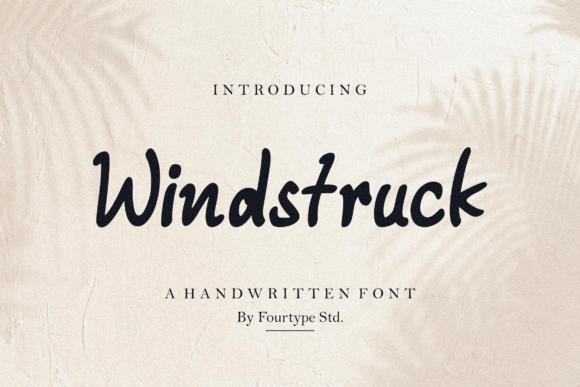
Unleash the allure of Windstruck Font, an exquisite collection of handwritten wonders, delicately crafted to captivate and inspire. With its graceful curves and elegant strokes, this script font family gracefully blends the charm of traditional calligraphy with a modern, refreshing touch, making it a timeless choice for discerning designers.
Immerse yourself in the world of Windstruck, where every letter dances with a unique personality, adding a touch of whimsical charm to your creations. Experience the joy of effortless expression as you effortlessly craft captivating designs that resonate with your audience. Whether you're a seasoned design virtuoso or just starting your creative journey, Windstruck is your perfect companion, guiding you towards design excellence.
Journey through the boundless possibilities of Windstruck, where your imagination takes center stage. Let your creativity soar as you design mesmerizing logos that command attention, eye-catching social media posts that ignite engagement, and stunning invitations that create a lasting impression. Windstruck is your secret weapon, transforming ordinary designs into captivating masterpieces that leave an unforgettable mark.
Elevate your advertising campaigns to new heights with Windstruck's captivating charm. Its inherent elegance lends a touch of sophistication to your designs, making them irresistible to your target audience. Create brochures, flyers, and posters that speak volumes, leaving a lasting impression that drives conversions and propels your business forward.
With Windstruck, you'll discover a font that is as versatile as your imagination. Its ability to seamlessly adapt to a myriad of projects is truly remarkable. Craft beautiful wedding invitations that exude romance and timeless elegance, design heartfelt greeting cards that convey warmth and sincerity, or create stunning posters that ignite excitement and anticipation for upcoming events. The possibilities are endless, empowering you to effortlessly manifest your creative vision.